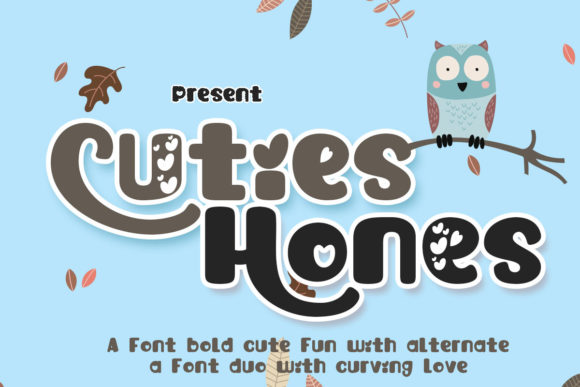
In the vibrant realm of typography, Cuties Hones Font stands as a radiant beacon, illuminating your creative vision with its captivating charm. This display font, the brainchild of the talented edwar.sp111, bursts onto the scene with an infectious energy that is sure to leave you spellbound.
Enter a world where whimsy and playfulness dance hand in hand, where every letter is a tiny masterpiece, meticulously crafted to evoke a sense of wonder and delight. Cuties Hones Font is not merely a collection of characters; it's an invitation to unleash your imagination and embark on an artistic adventure like no other.
Picture this: your designs transformed into captivating canvases adorned with the vibrant hues of Cuties Hones. T-shirts, posters, invitations, and social media posts will come alive with an irresistible allure, drawing eyes and hearts alike. This font possesses an uncanny ability to infuse life into your creations, making them speak volumes even before a single word is uttered.
But Cuties Hones Font is more than just a pretty face. It's a versatile chameleon, effortlessly adapting to a wide range of design aesthetics. Whether you're pursuing a vintage-inspired look or embracing a modern, minimalist vibe, this font will seamlessly blend in, adding a touch of magic without overpowering your overall design.
And let's not forget the cherry on top: Cuties Hones Font is incredibly user-friendly. Even if you're a typography novice, you'll find yourself navigating this font with ease. Its intuitive design ensures a smooth and seamless experience, allowing you to focus on what truly matters - unleashing your creativity and crafting designs that leave a lasting impression.
So, dear design enthusiasts, it's time to bid farewell to the mundane and embrace the extraordinary. Cuties Hones Font awaits you, ready to ignite your passion and transform your creative endeavors into breathtaking works of art. Prepare to be captivated by its charm, inspired by its versatility, and amazed by its user-friendliness.
Welcome to the world of Cuties Hones Font, where every design tells a captivating story. Are you ready to make your mark?